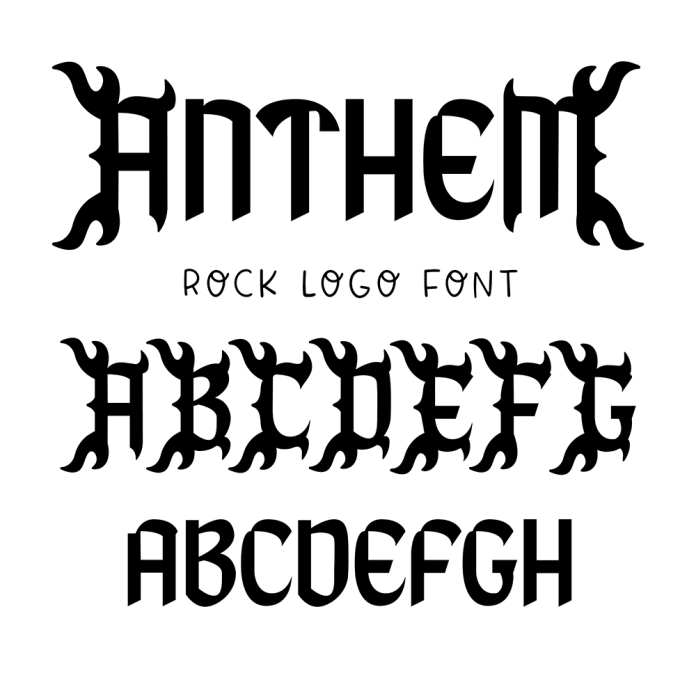
Anthem Rock Music Logo Blackletter Font is a bold and edgy font design inspired by the gothic style of old English typography. Perfect for creating a spooky and rock-inspired look, this font is ideal for Halloween-themed projects, music branding, and logo design. Its intricate details and sharp angles give it a unique and eye-catching appeal.